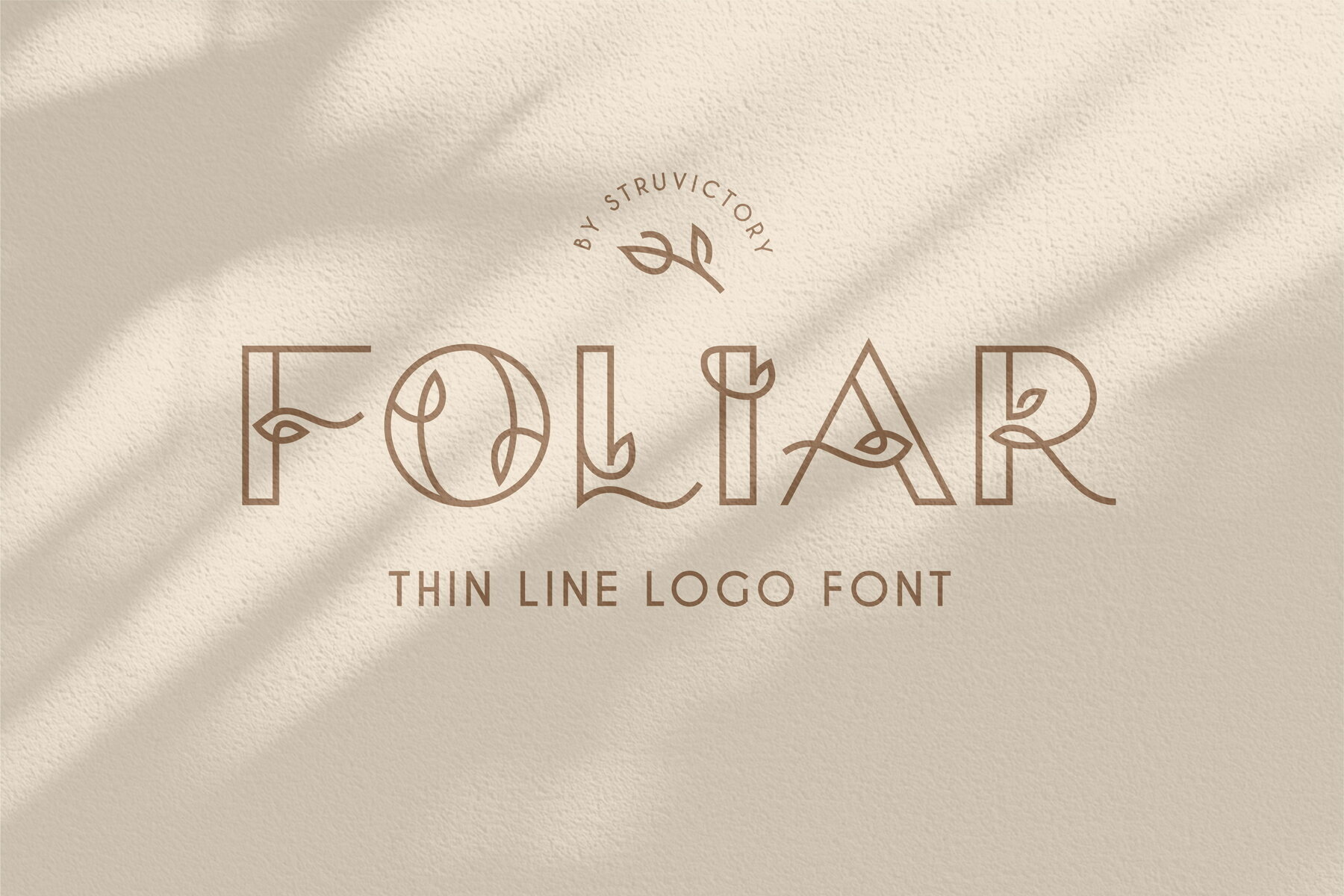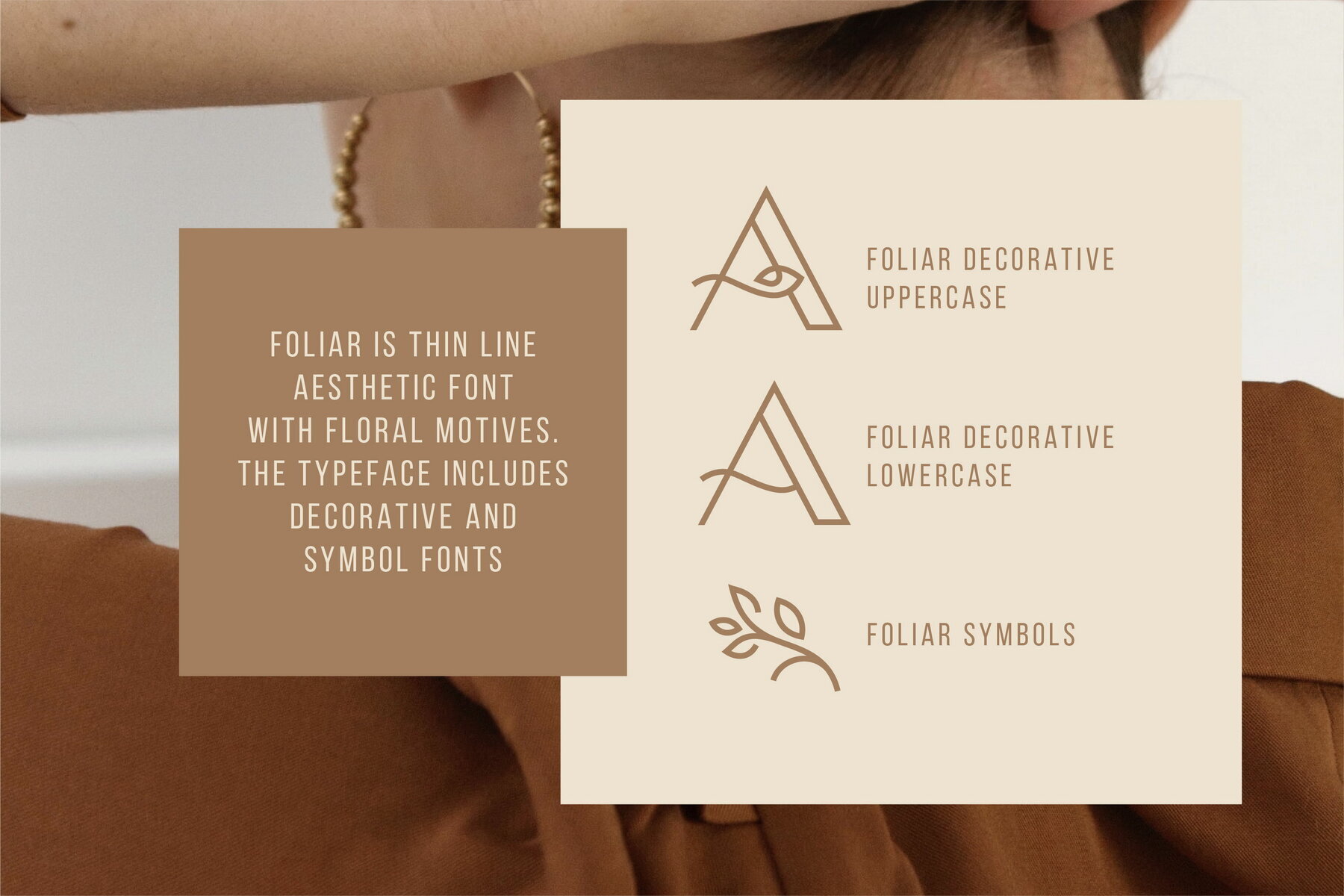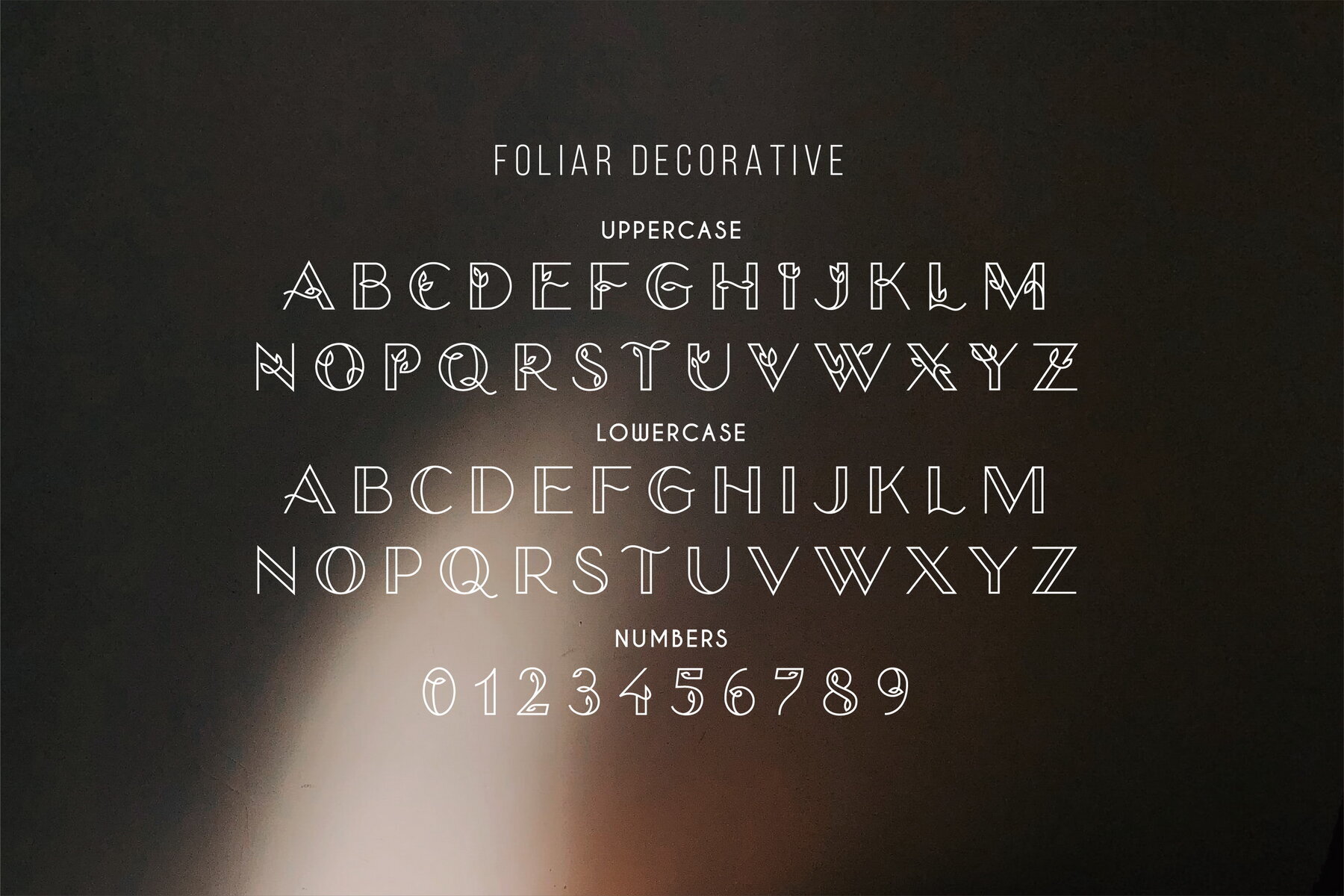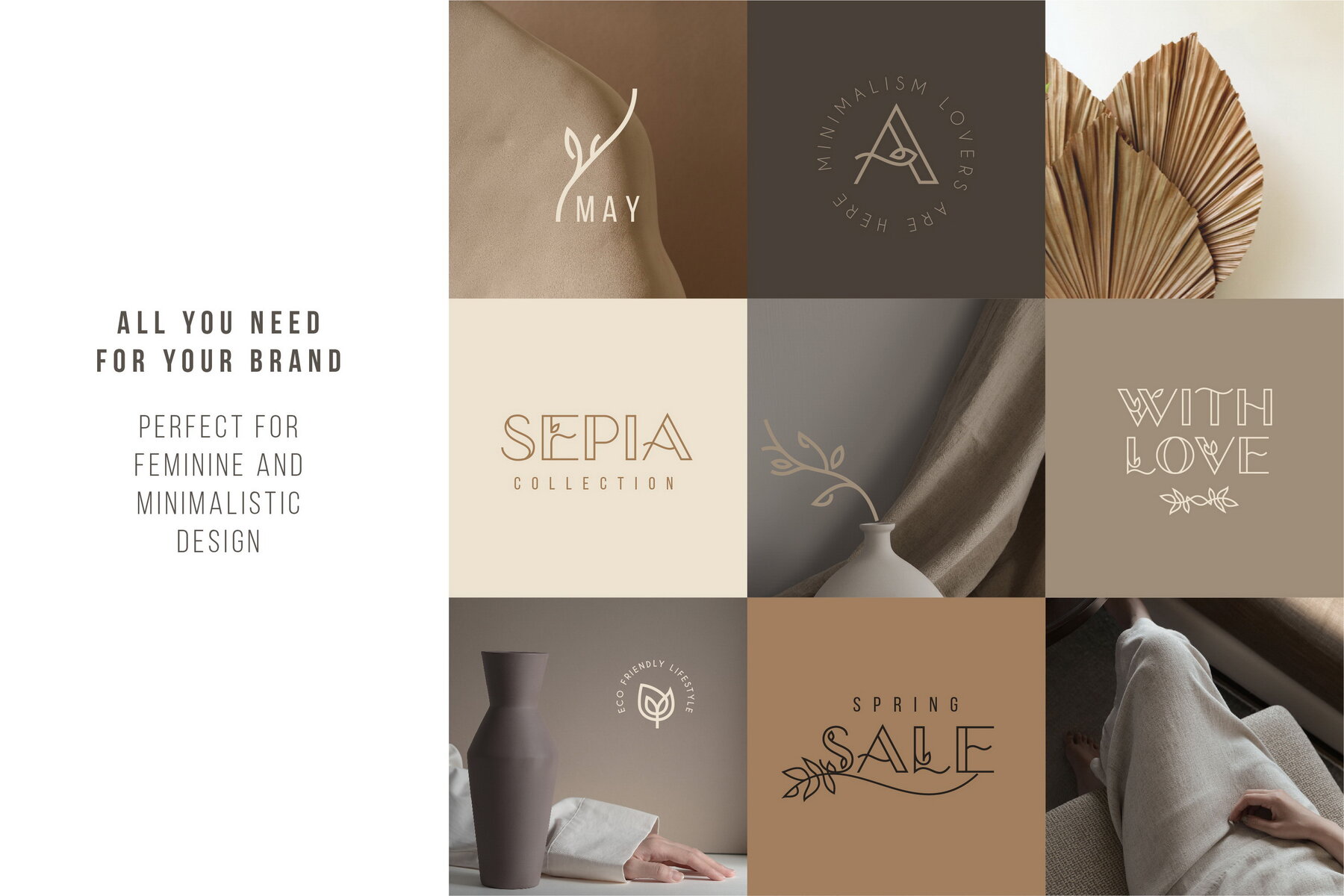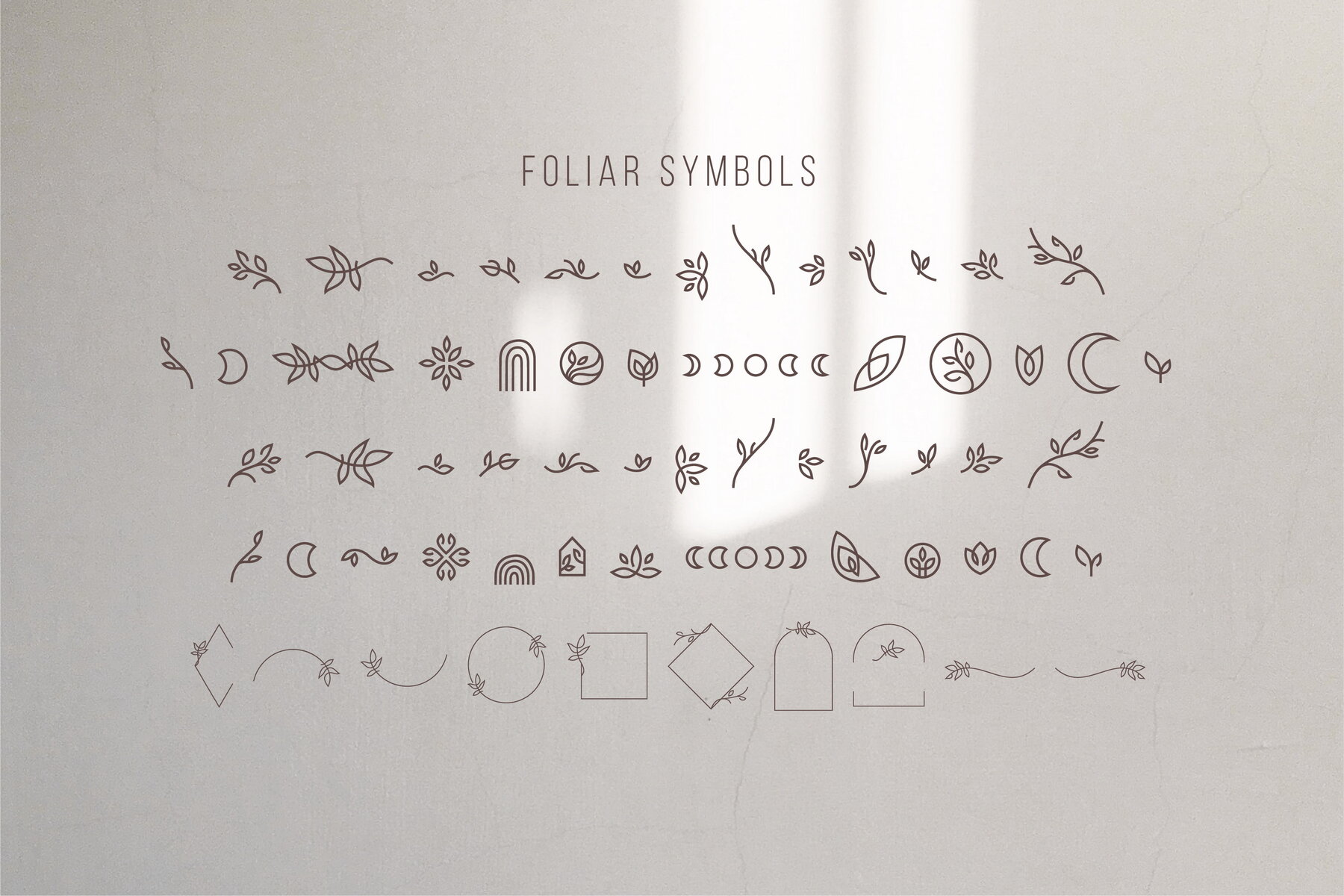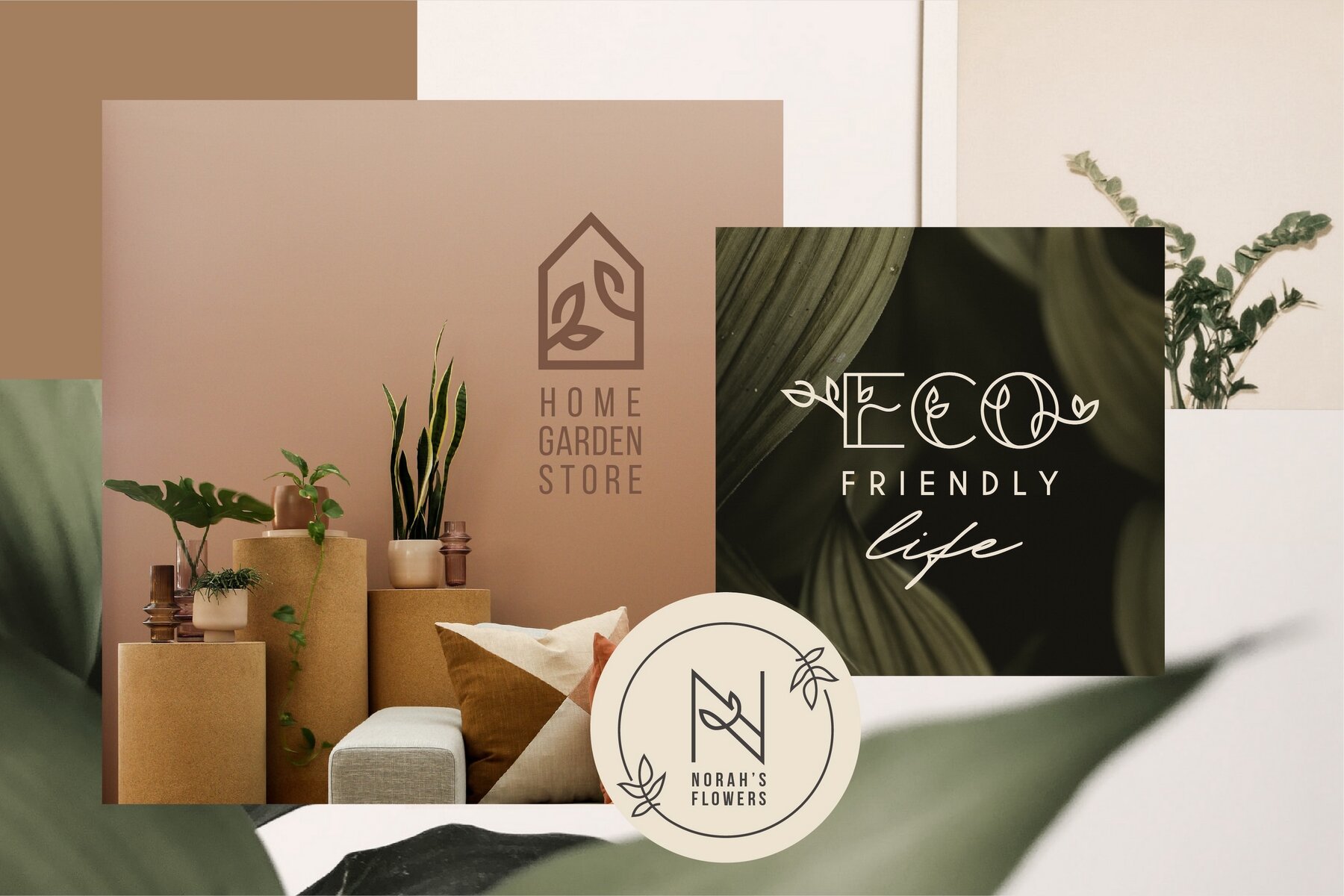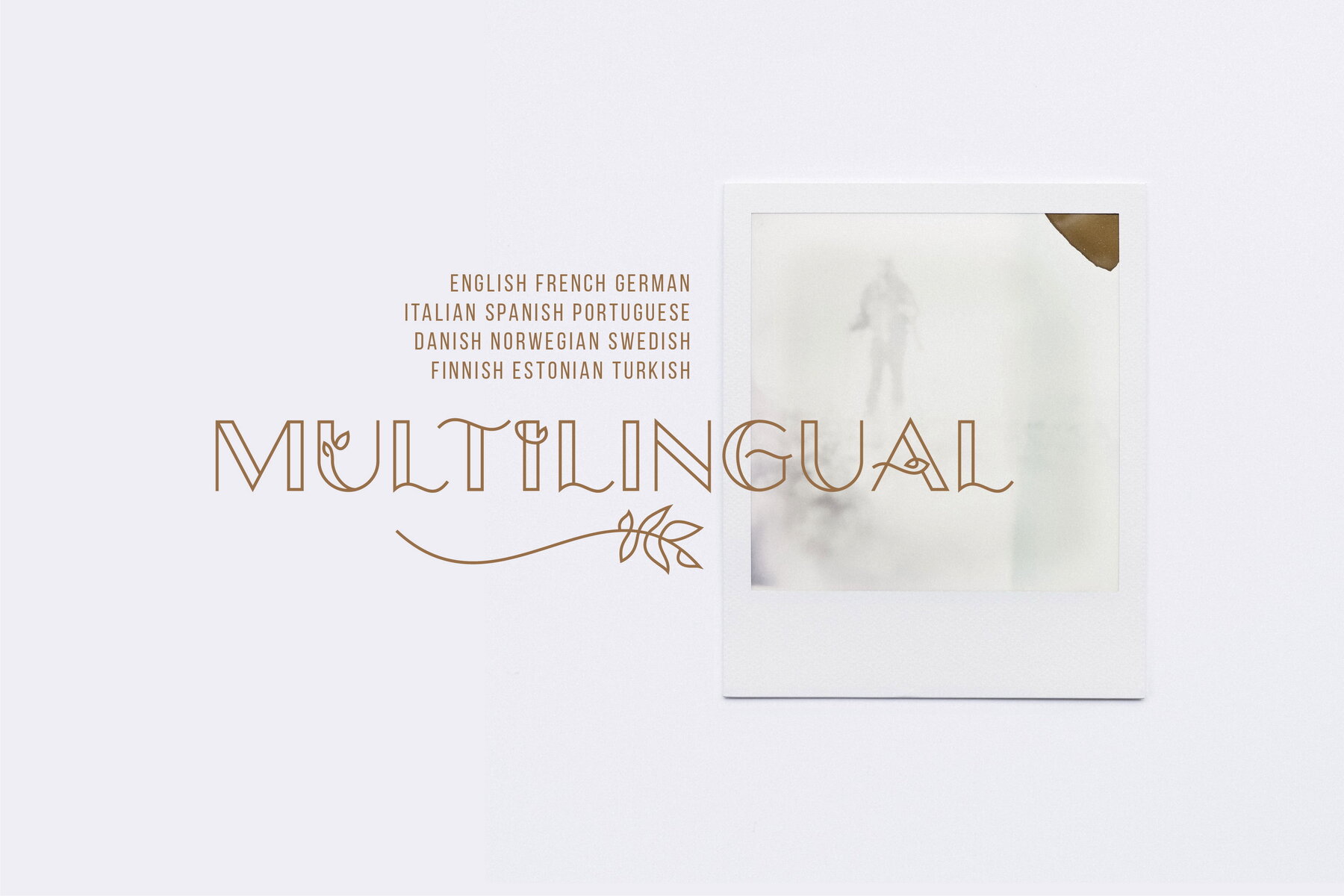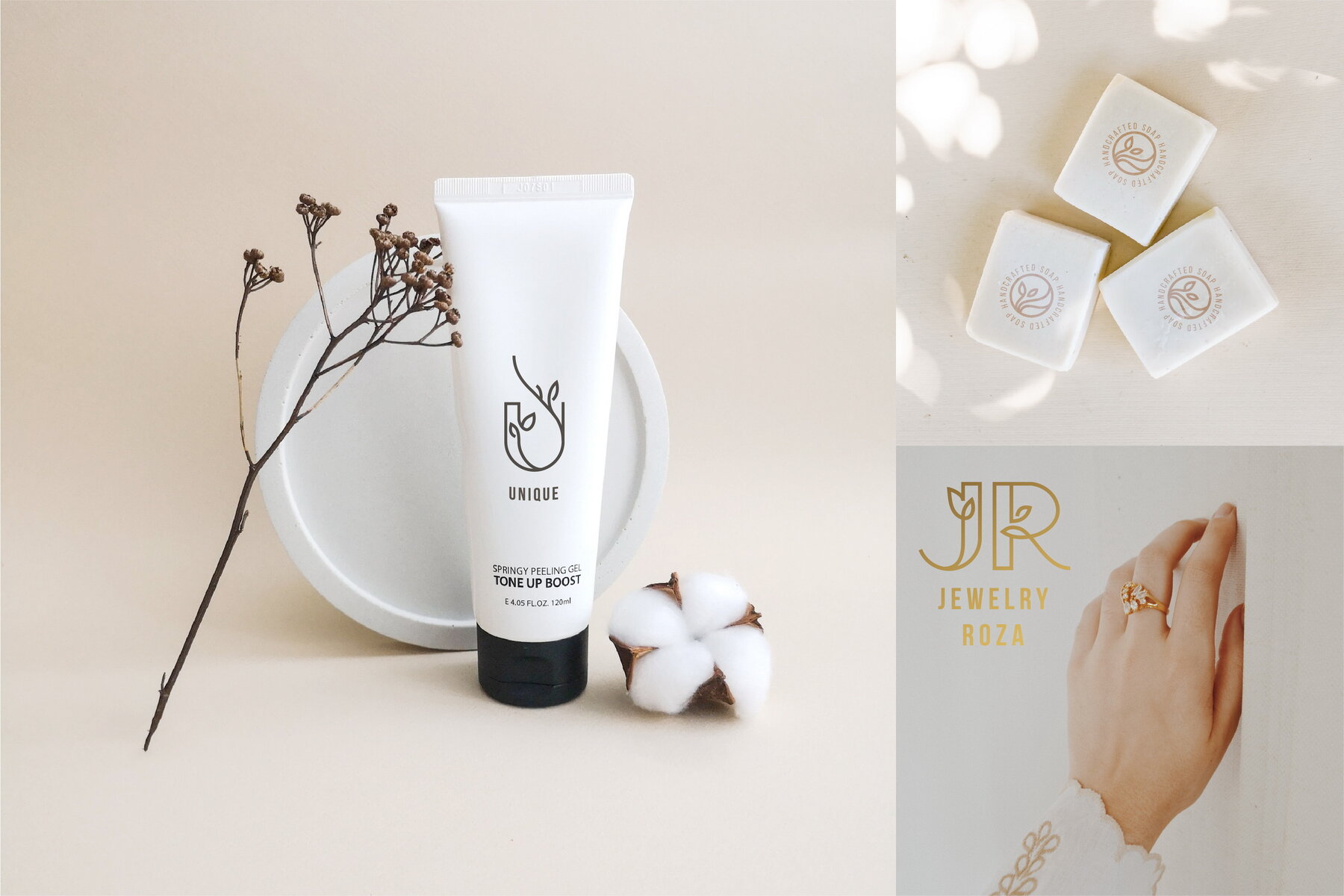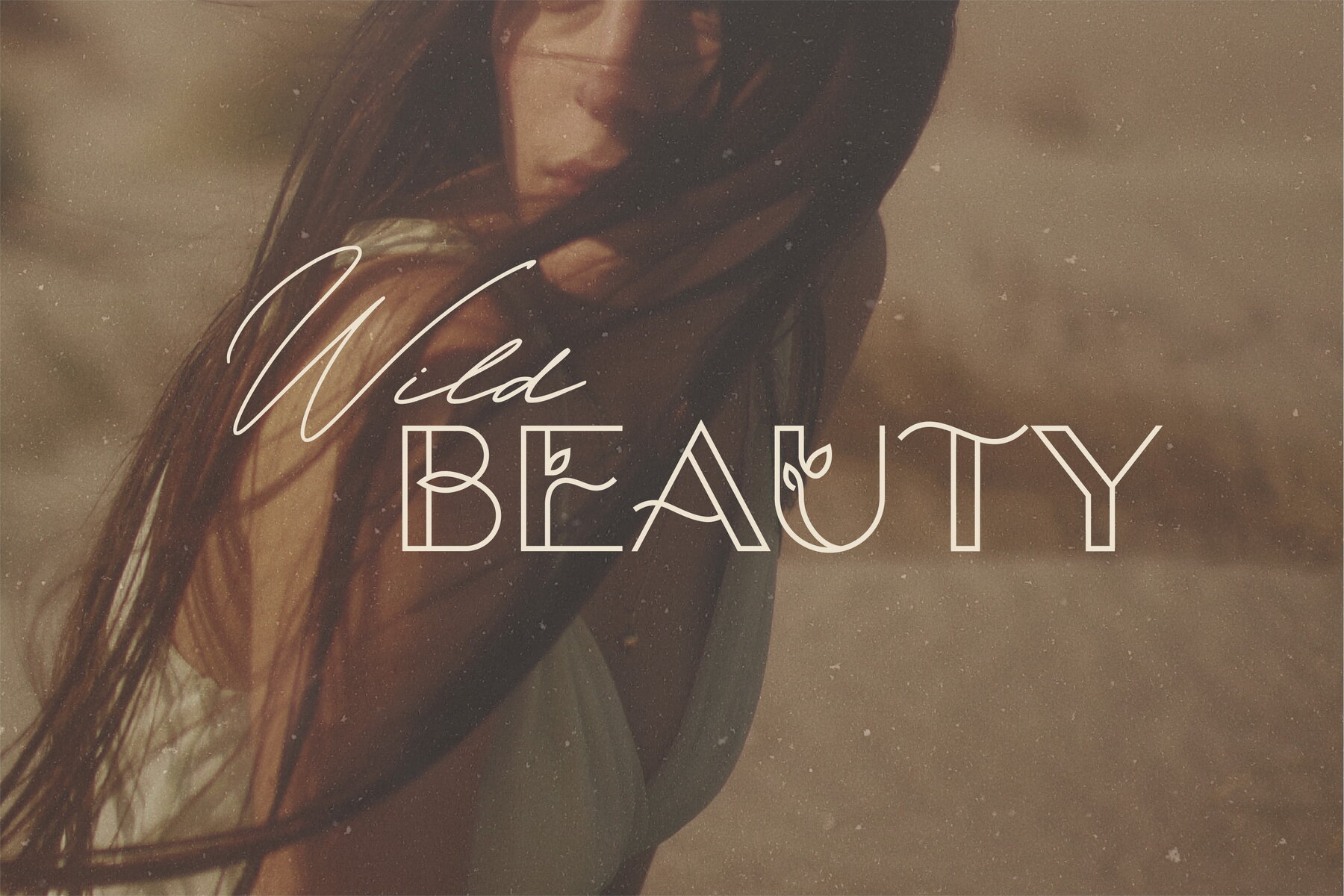
Foliar Font
Foliar Decorative
Foliar Symbols
Foliar is an uppercase font characterized by delicate floral motifs, offering both Decorative and Symbol styles. This unique typeface invites creative possibilities when combining letters with symbols for a sophisticated outcome. Ideally suited for branding projects that focus on feminine aesthetics, eco-friendly themes, and minimalistic art, Foliar excels in crafting designs for social media, organic cosmetics, jewelry, handmade products, and more.
With its versatility, Foliar is perfect for designing logos and monograms, adding an elegant touch to your work. It pairs wonderfully with abstract shapes and line art, enhancing modern graphic projects. Additionally, Foliar provides extensive language support, making it a flexible choice for a wide range of applications and audiences.